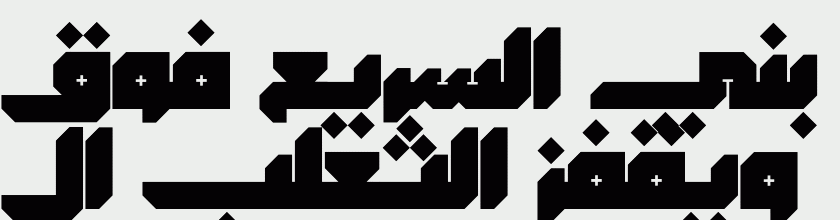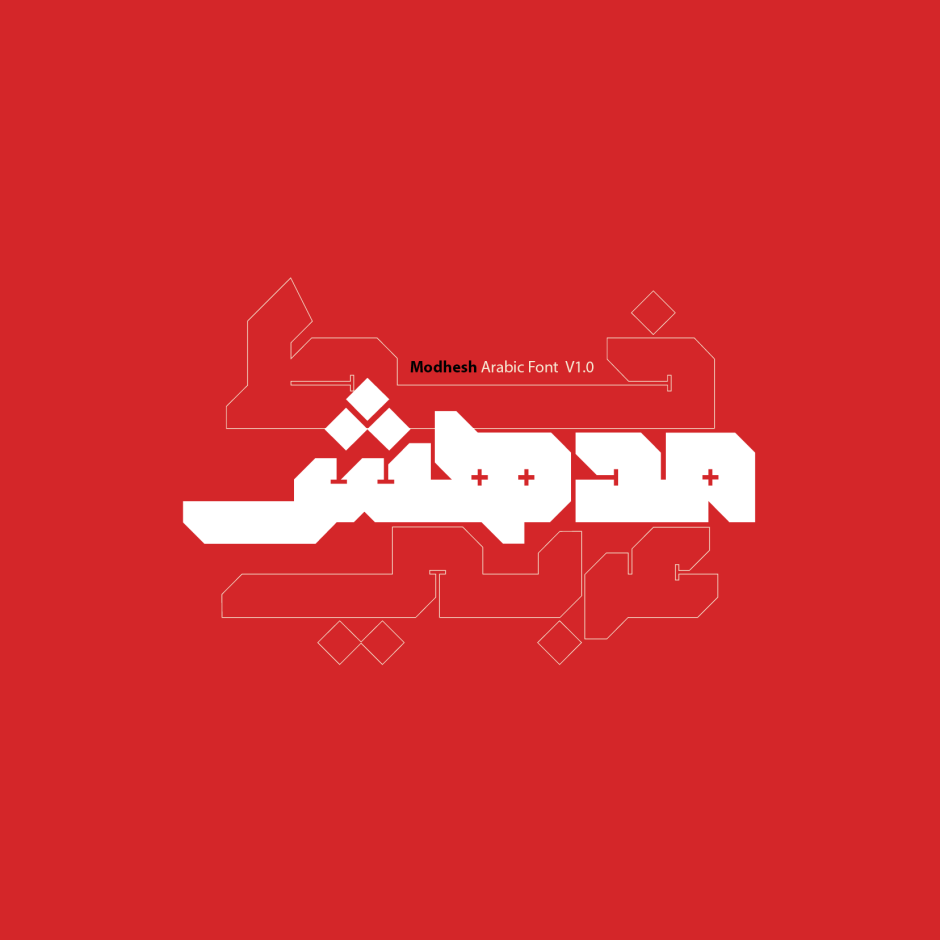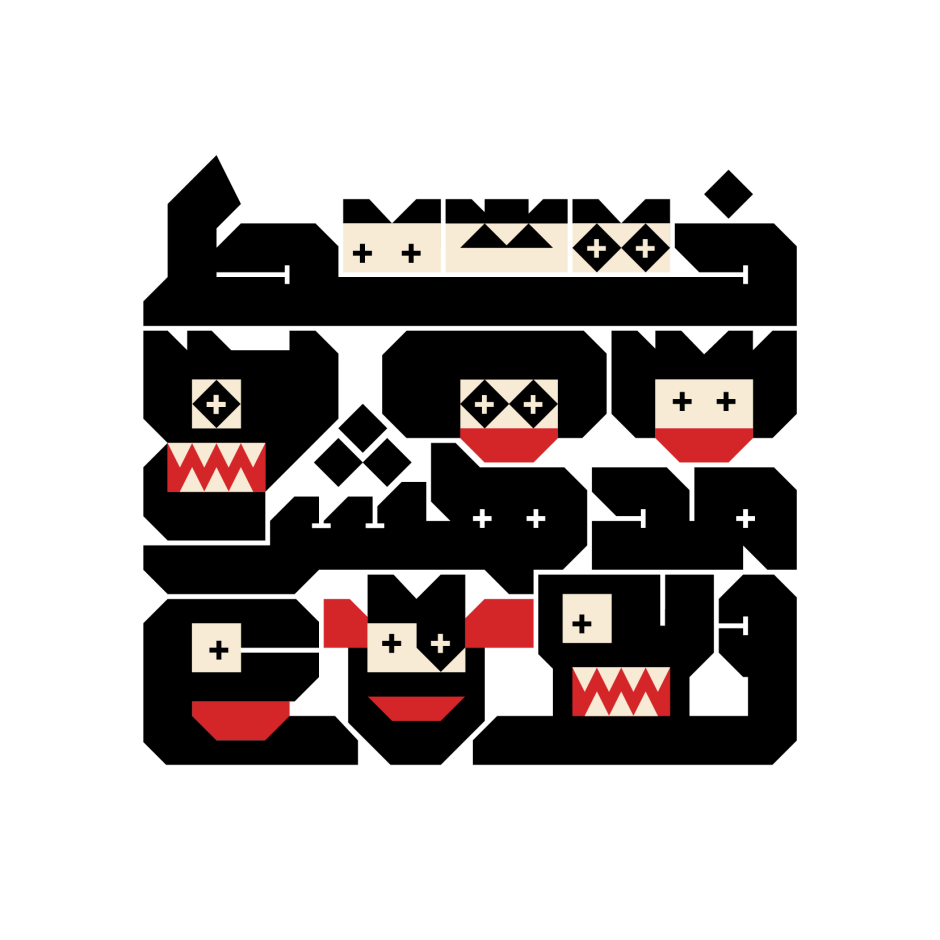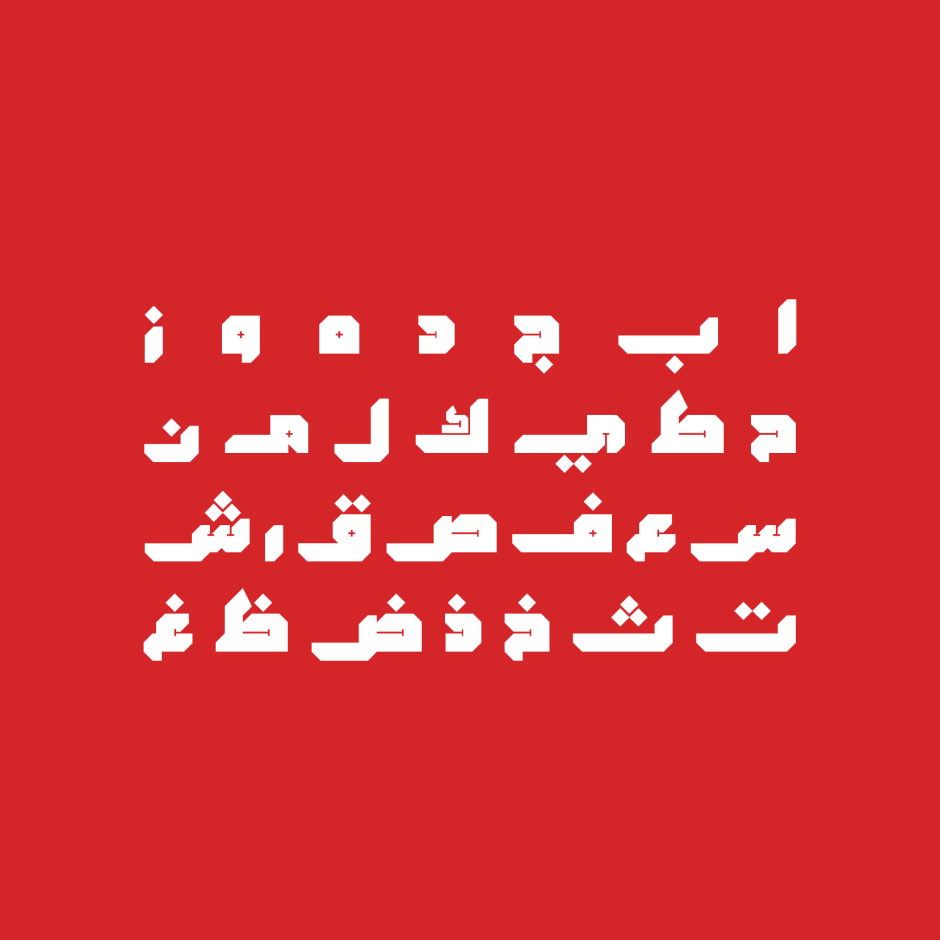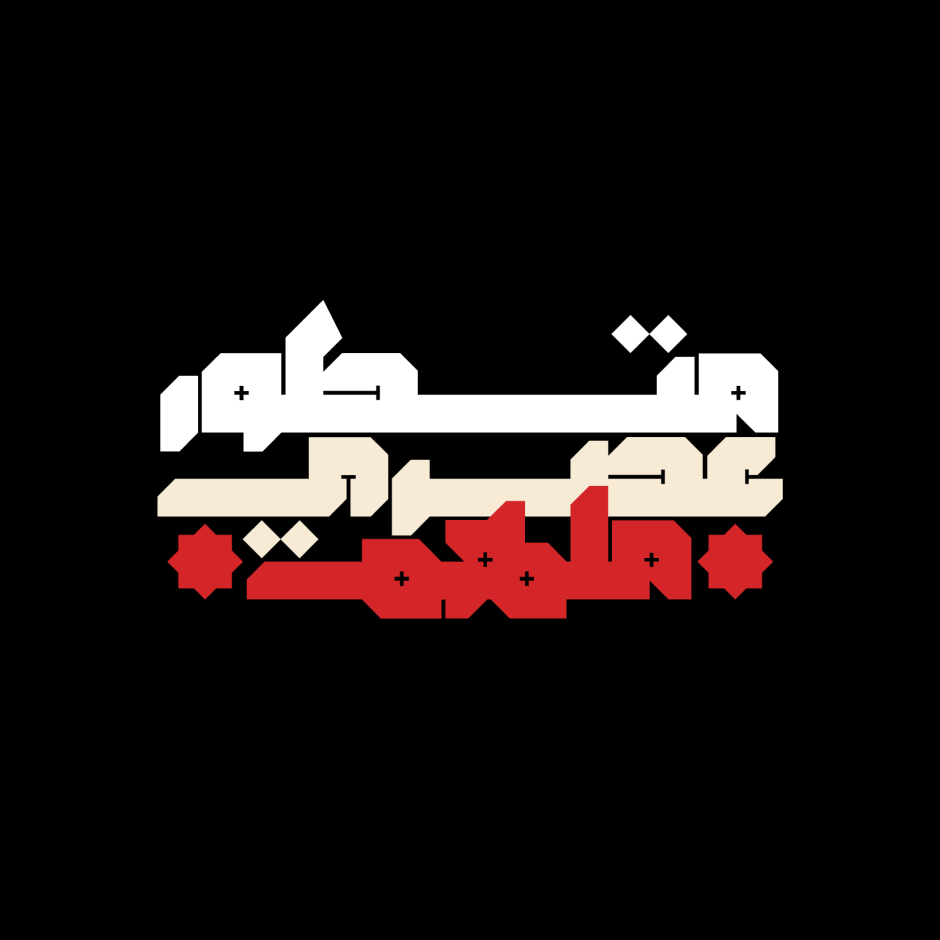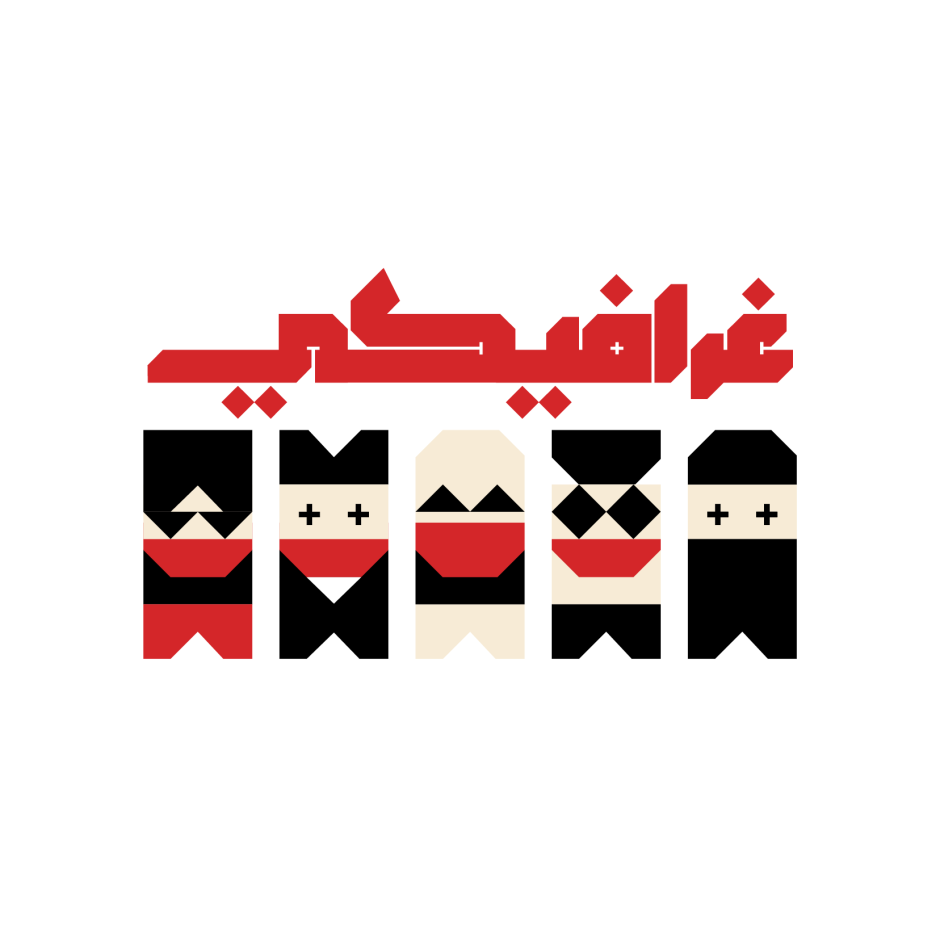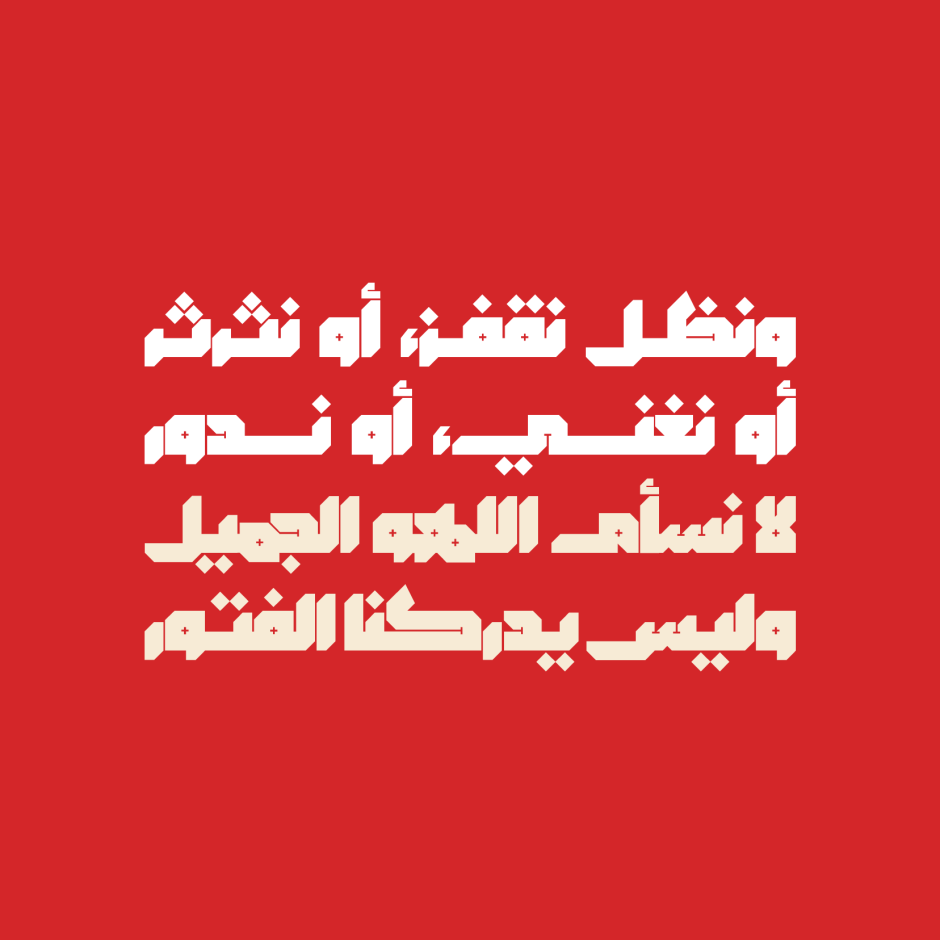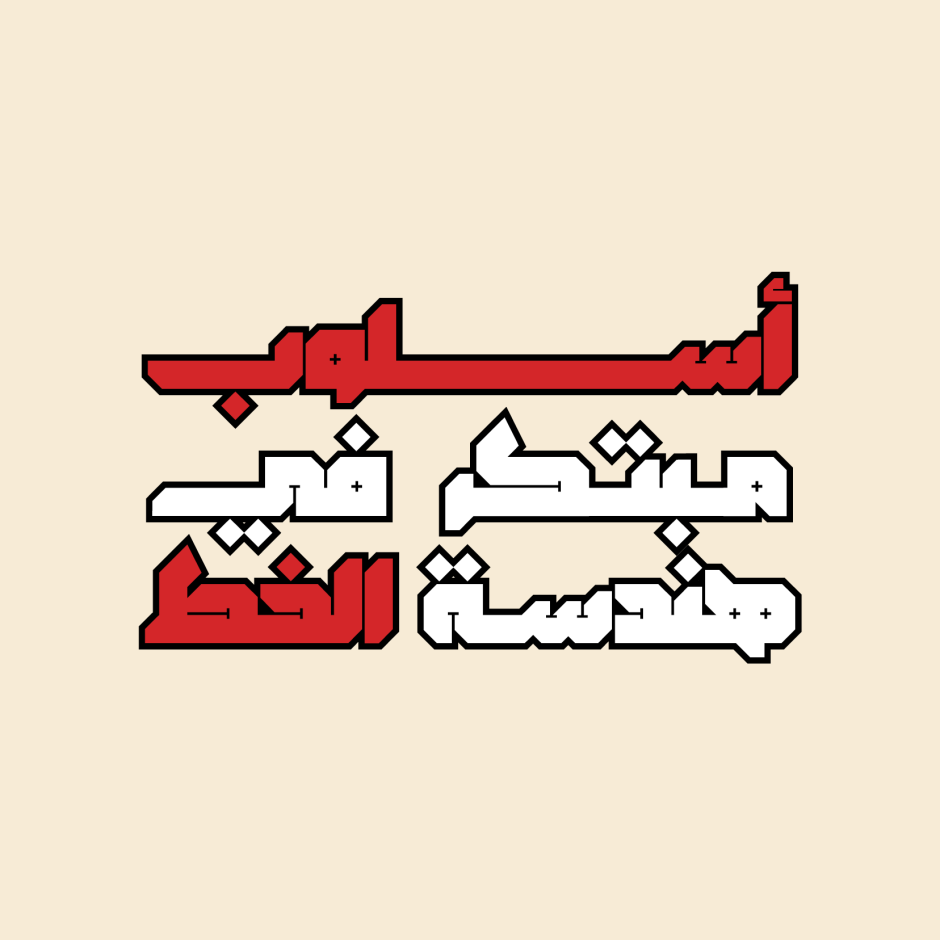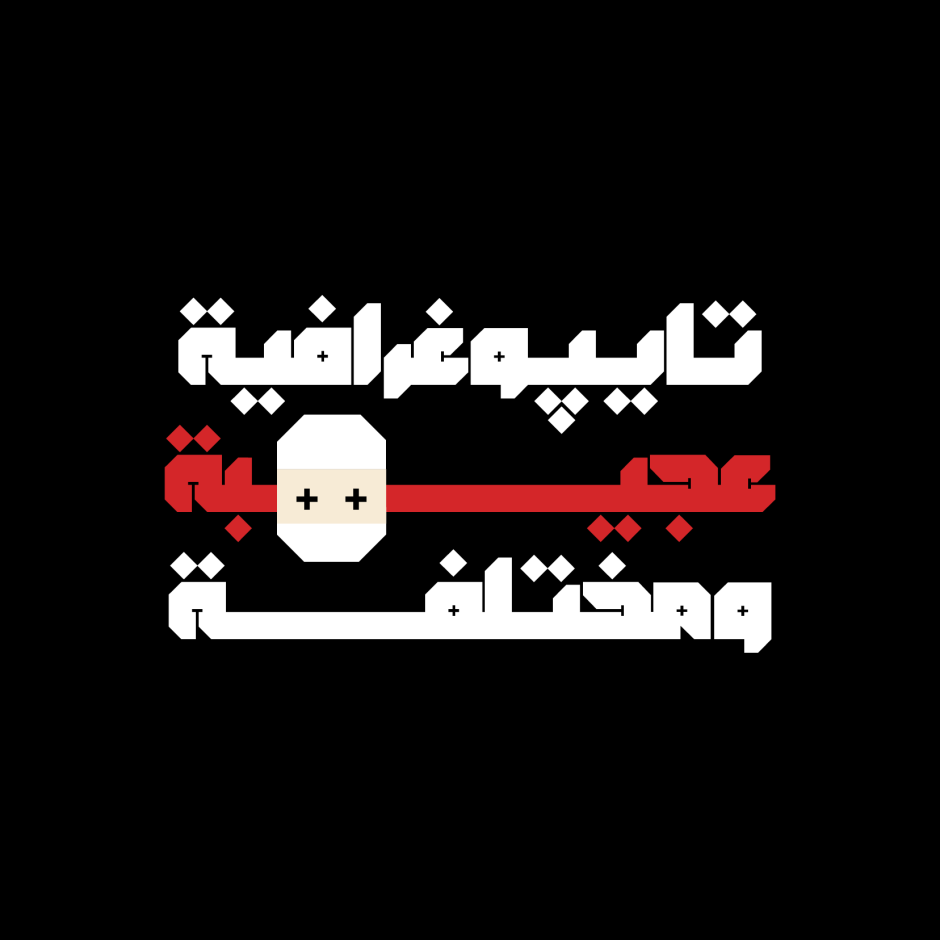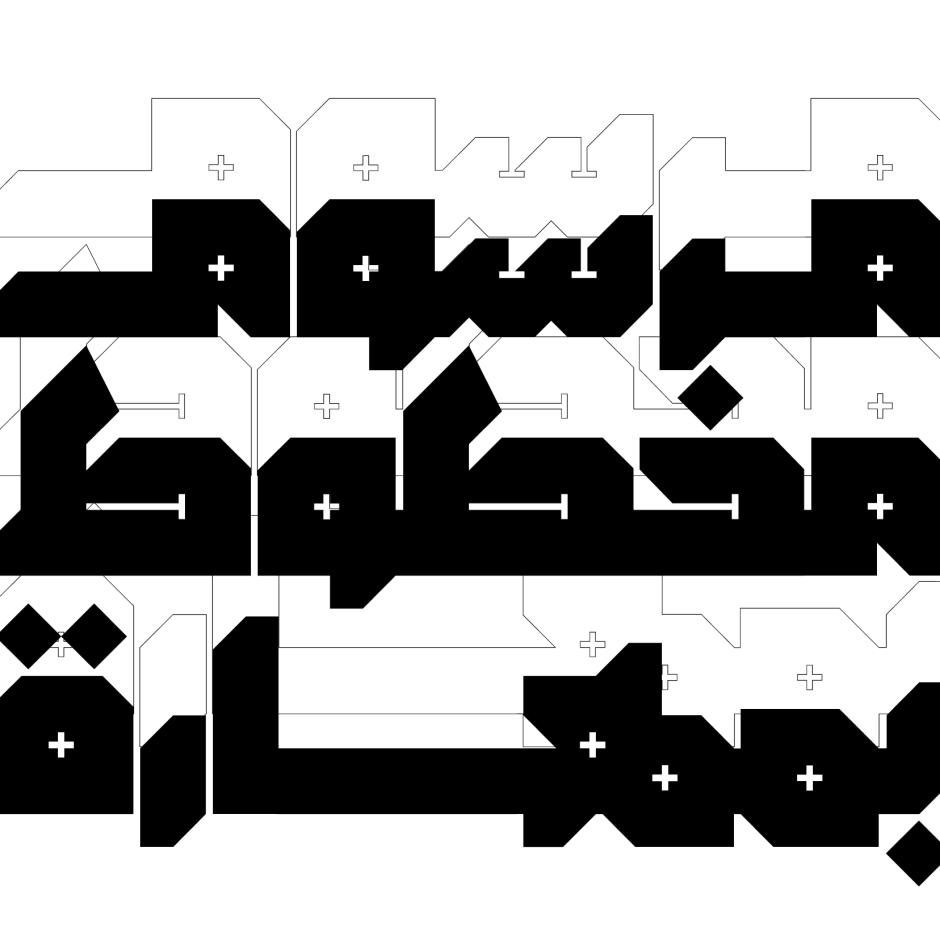
Modhesh
Modhesh (the Arabic word for 'Astonishing') is an Arabic display font that features unconventional letterform style with a very heavy weight. It is intended primarily for use in large formats, making it ideal for eye-catching headings rather than lengthy body text. Its bold typographic style makes Modhesh a great fit for contemporary designs, as it complements geometric illustrations seamlessly. This font is versatile and can be effectively utilized in web design, print media, UI/UX and mobile applications.